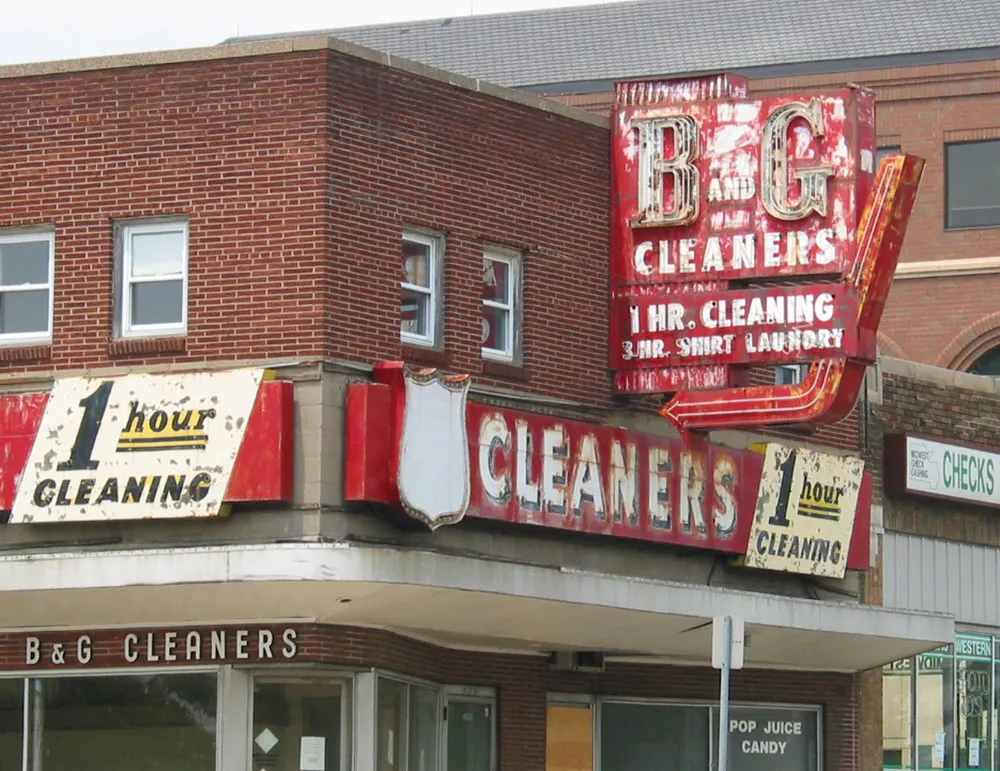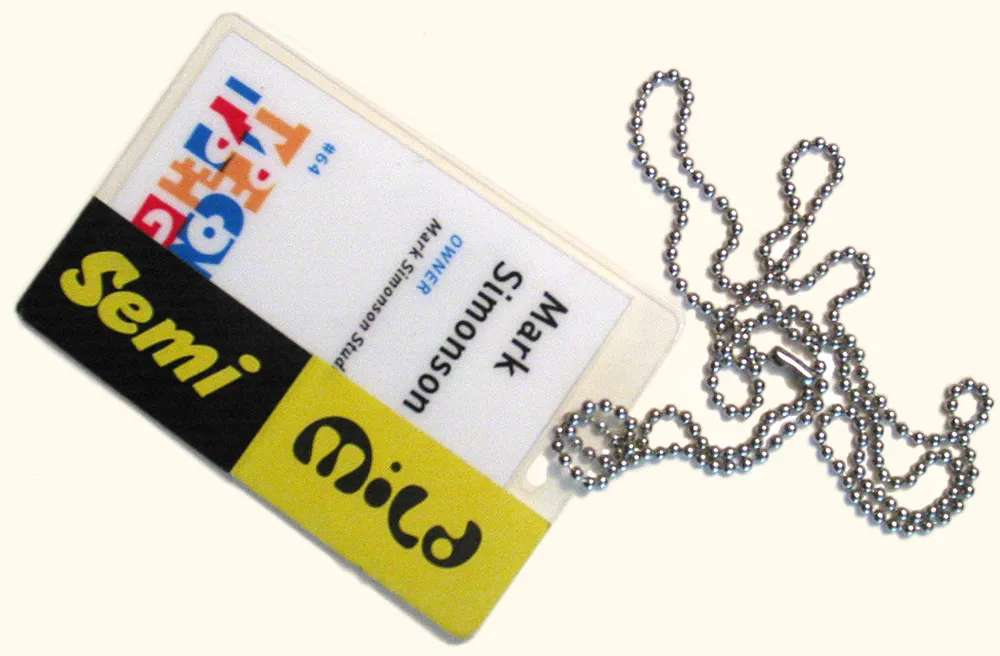
Beware of Imitations
As noted on the sample page, Felt Tip Roman has been used in the U.S. editions of the Harry Potter books to represent the handwriting of the character Hagrid. I’ve always thought this was kind of cool, and it makes a nice example when trying to talk about type design with people who have never thought about where fonts come from.
Over the weekend, I was shocked to learn that there is a free font, distributed by many of the Harry Potter fan sites, purporting to be “Hagrid’s handwriting.” After checking it out, I was relieved to discover that it is not a pirated copy of my Felt Tip Roman, but a rather poor imitation.
As you can see, it looks more or less similar, but is clearly not Felt Tip Roman. Looking at it more closely, it appears that the person who did it must have copied the letters with a pen by eye (making up the ones she didn’t have samples of), scanned them in and had the computer autotrace them. (Felt Tip Roman was hand digitized, not autotraced.)
I guess I don’t mind fans using this imitation font. At least they are not passing around bootleg copies of the real thing. But if you do want the real thing, remember: It’s not a free font, and never has been.
Roadside Attractions, Strange
I spent the last few days at a family reunion in Wisconsin Dells (you’ll find it listed in the dictionary definition for “tourist trap”). One of the stranger things I saw there was an attraction called “Top Secret,” shown in the photo above. It looks exactly like the White House was dropped from the sky. Upside down.
What it is, I don’t know. We were not quite curious enough to pay the hefty admission fee to find out. Supposedly, you have to promise not to tell anyone what’s inside so as not to spoil the surprise (or the disappointment, possibly). Among the typical themes in the Dells (lumberjacks, pirates, Mount Olympus, the Carribean, etc.) it was disconcertingly Dada-esque, and therefore kind of cool. It almost doesn’t matter what’s inside.
Car Wash
Vintage sign seen in Puyallup, Washington, June 17, 2001.
Big Tractor
Part of the sculpture park at New York Mills, Minnesota. Photo taken June 28, 2002.
B and G Cleaners
Vintage sign seen in St. Paul on June 8, 2002. The building was demolished a few days later.
TypeCon 2004 Report #4
I meant to take more photos than this at the conference, but here are a few. Sorry, no drunken typophiles or attention to white balance.